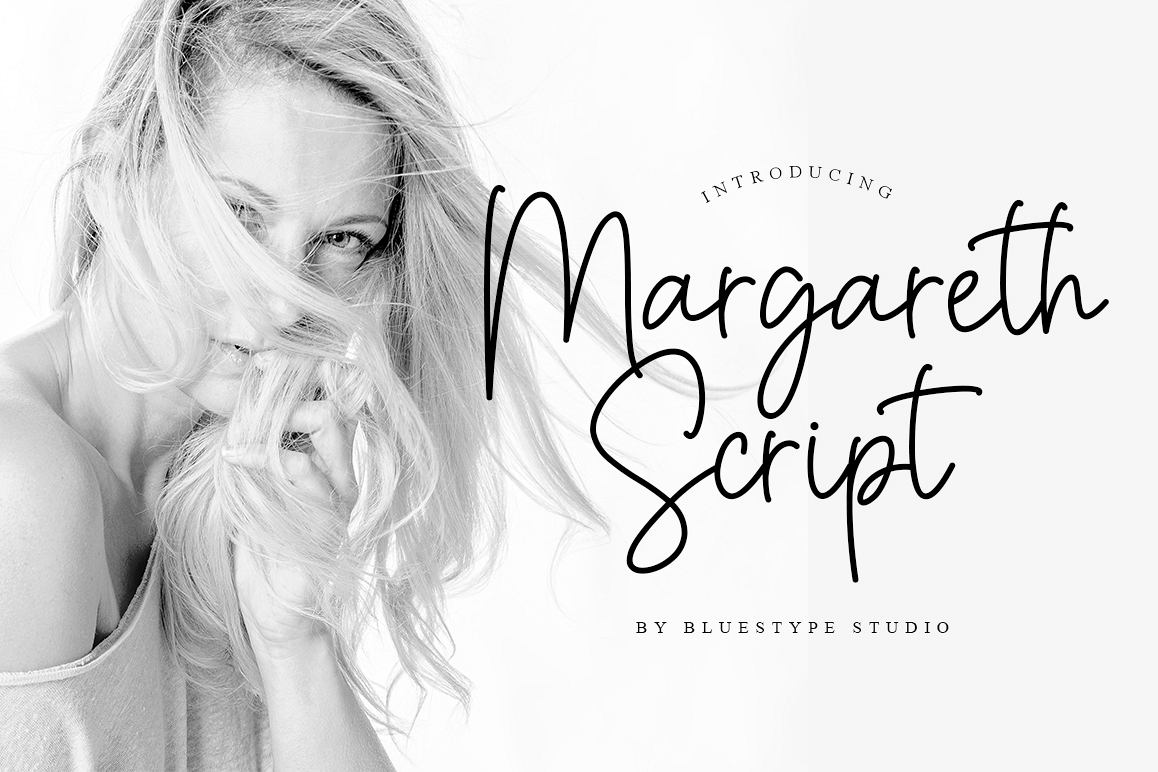
Margareth Script - Beauty Handwritten
Margareth Script
This is our newest product called Margareth Script. Margareth Script is a sweet and simple script that will easily add a dash of authenticity to your next creative endeavor.
This font is suitable for use on business cards, weddings, t-shirt designs, logos, magazines, quotes, fashion, watermarks, invitations, signatures.